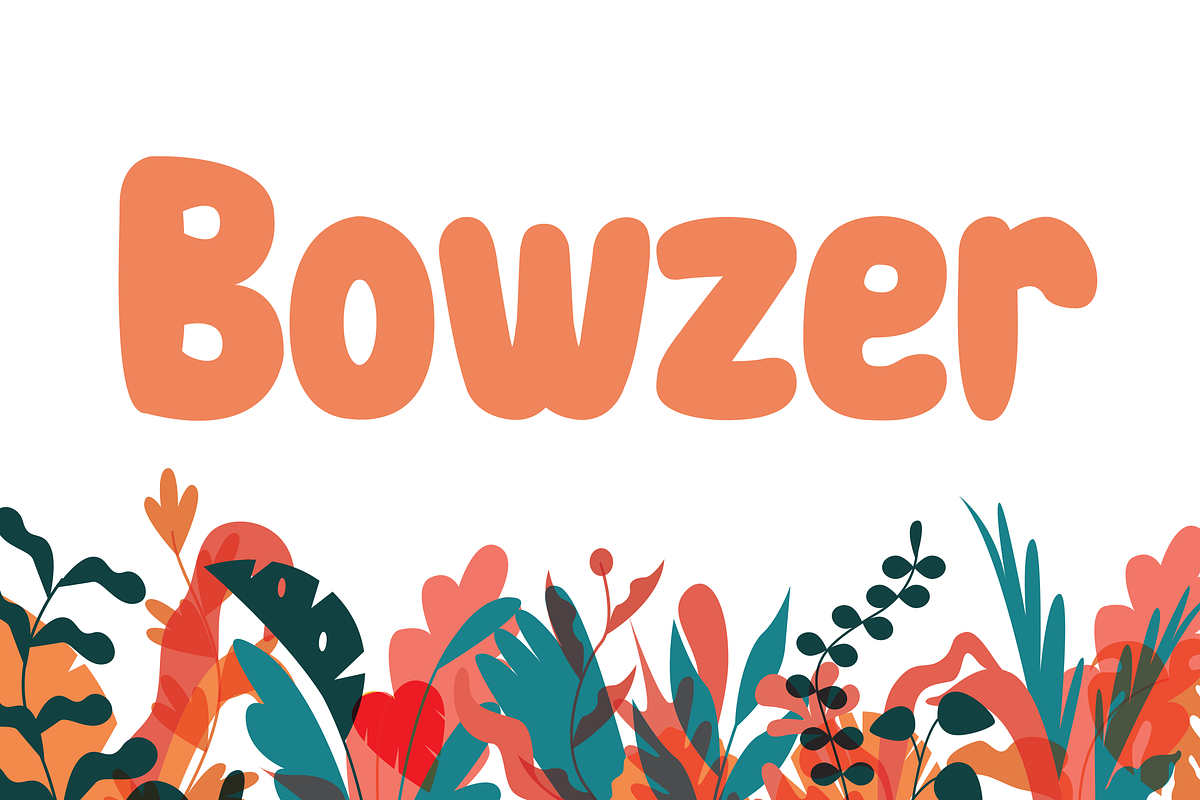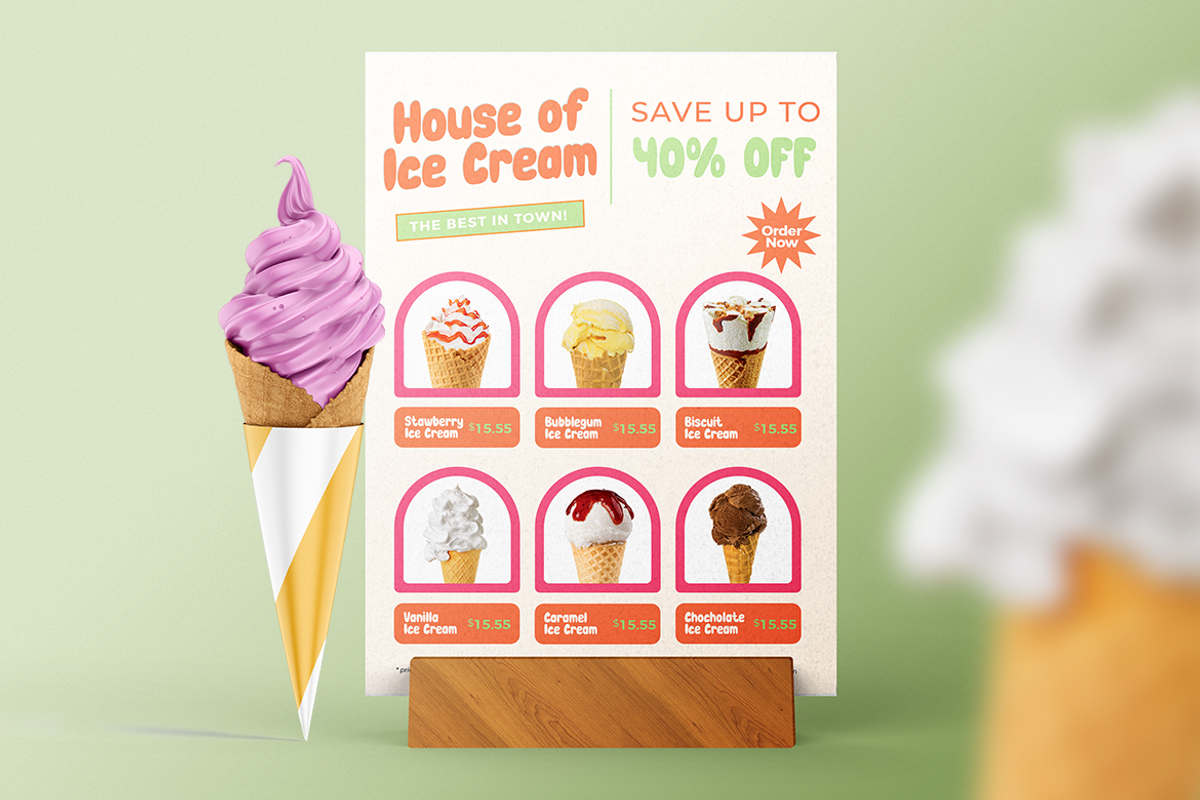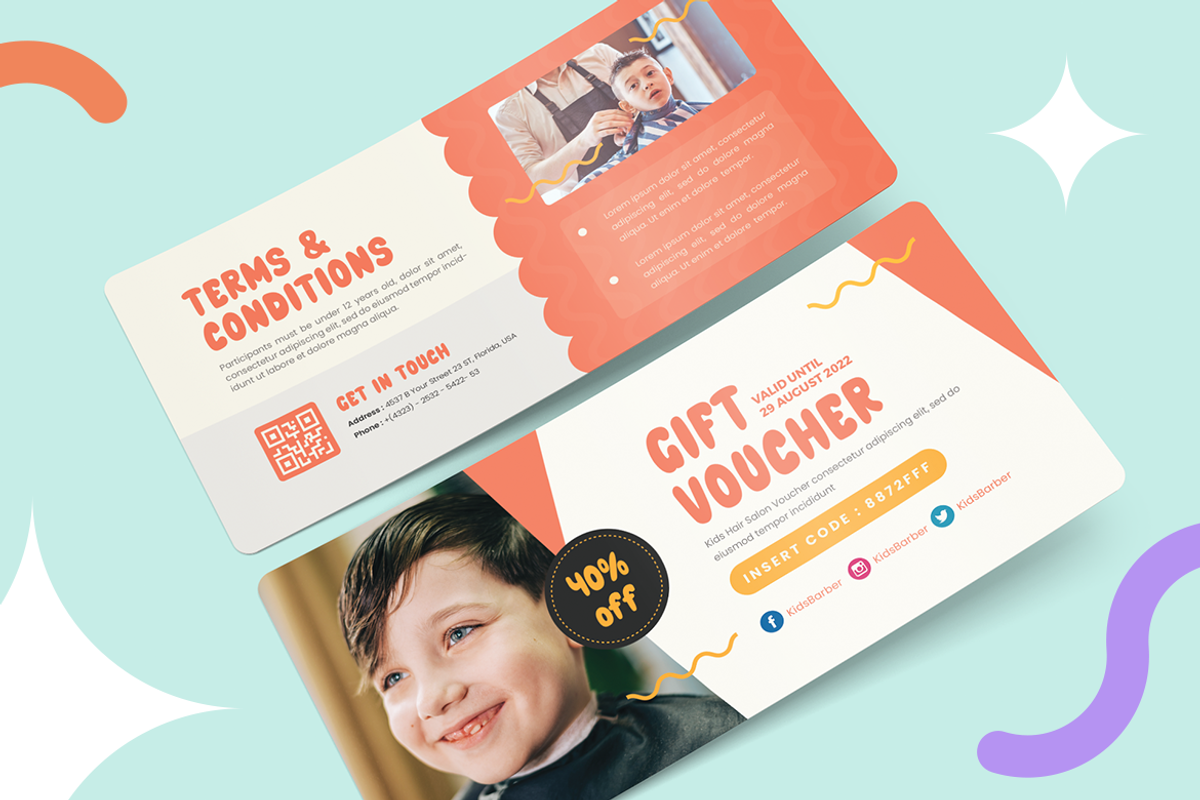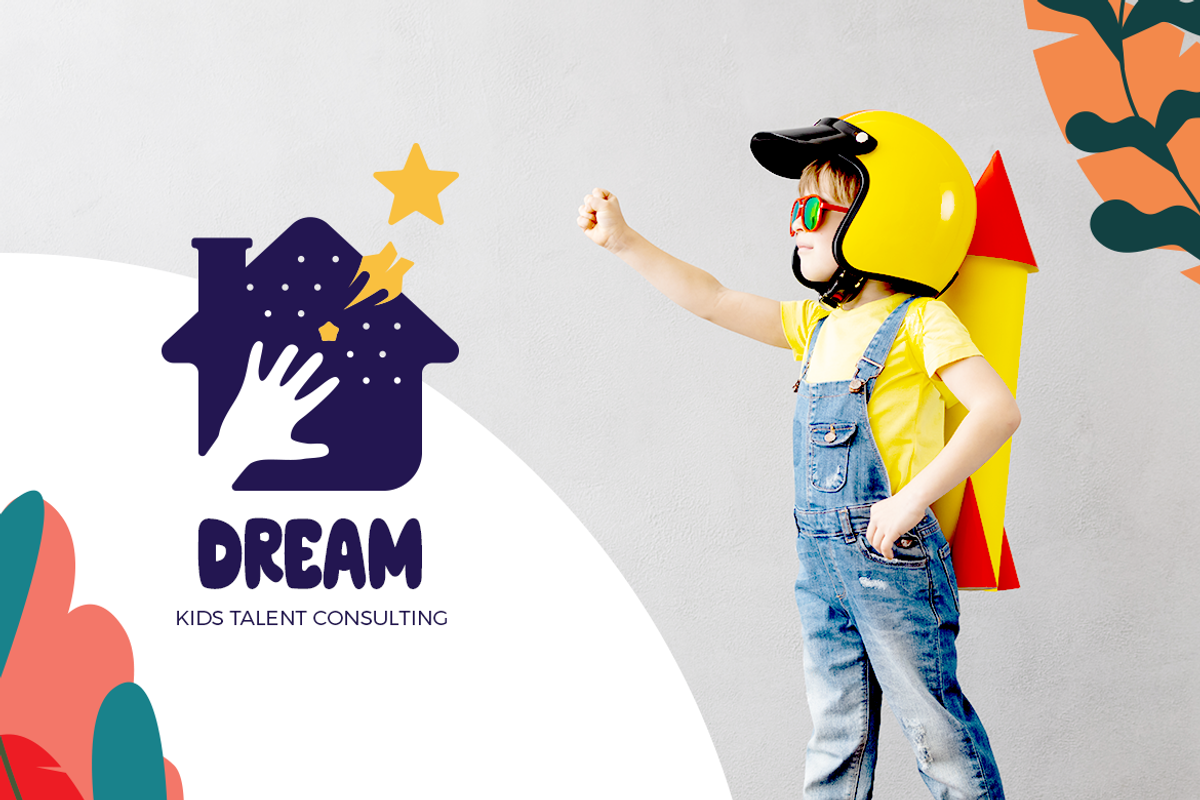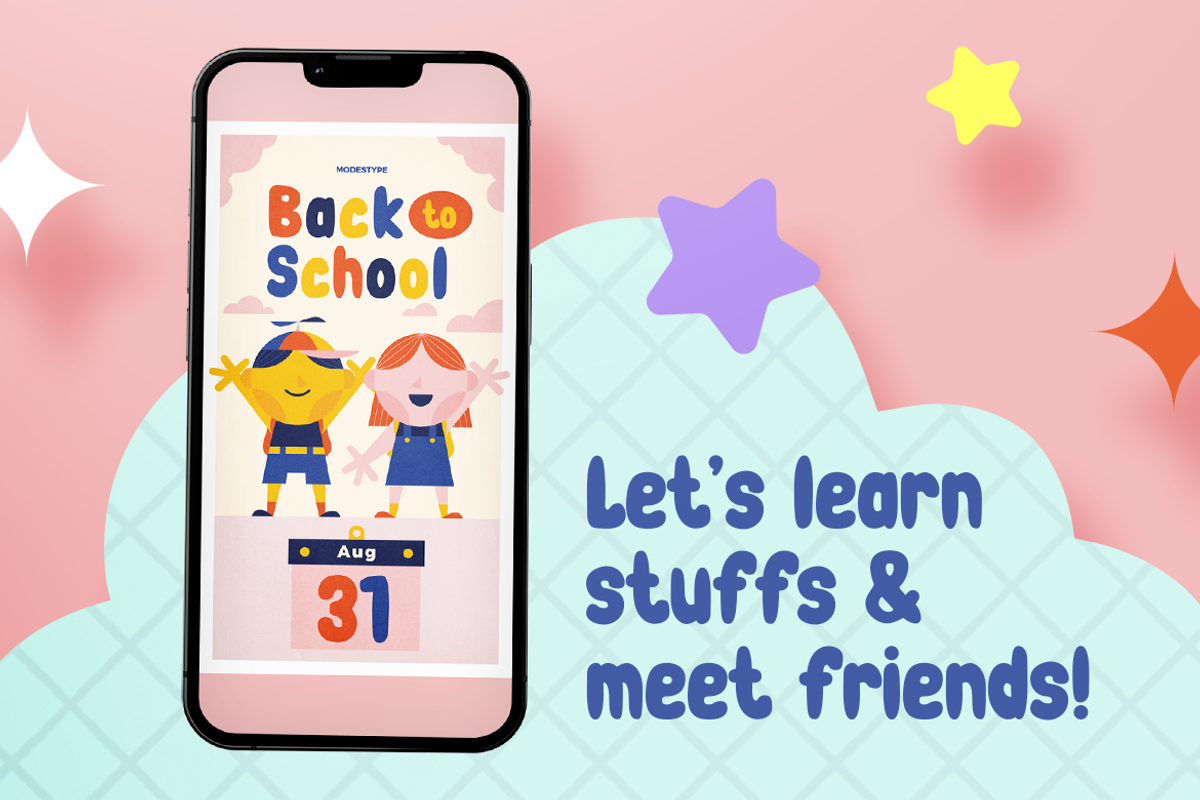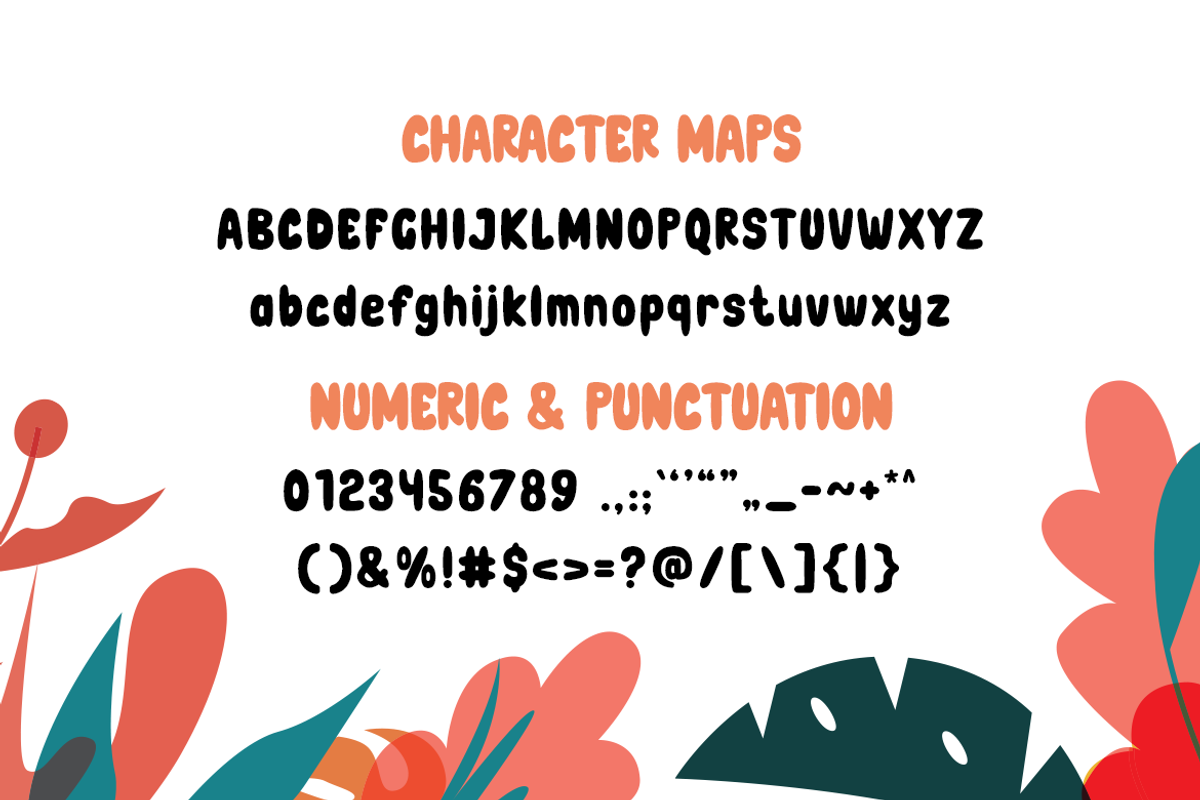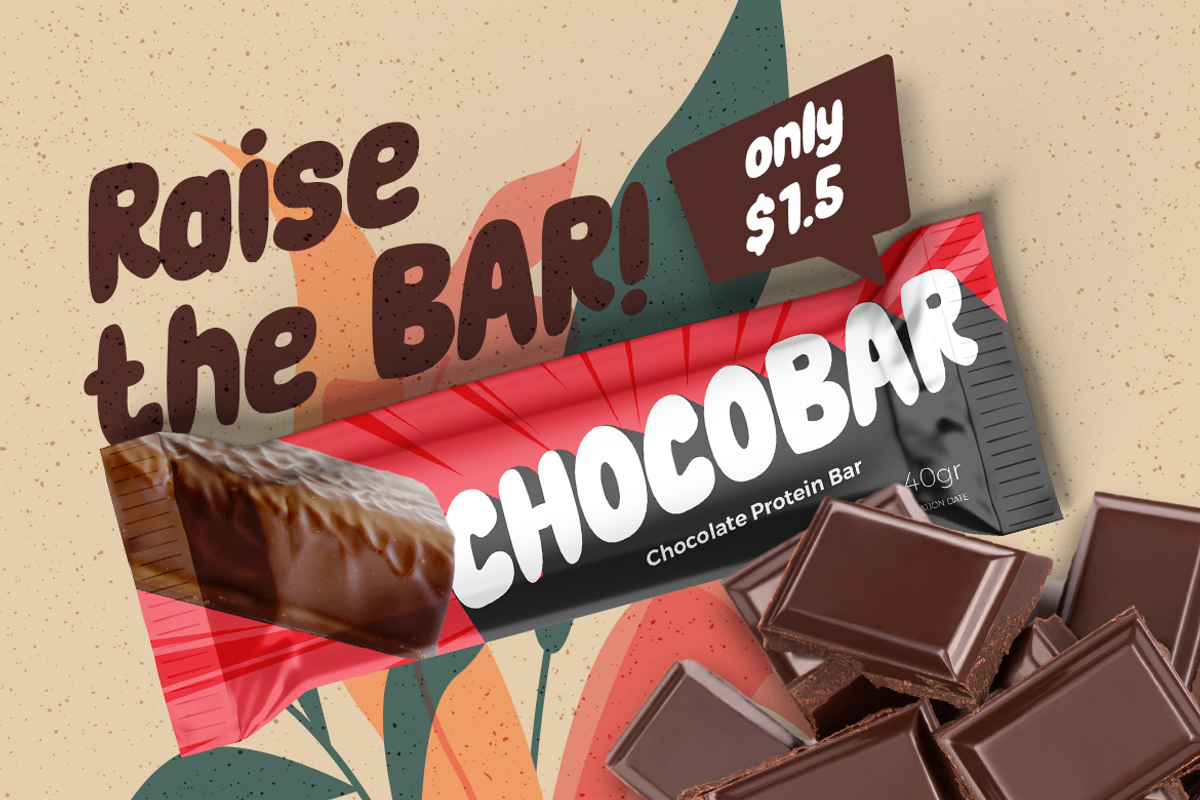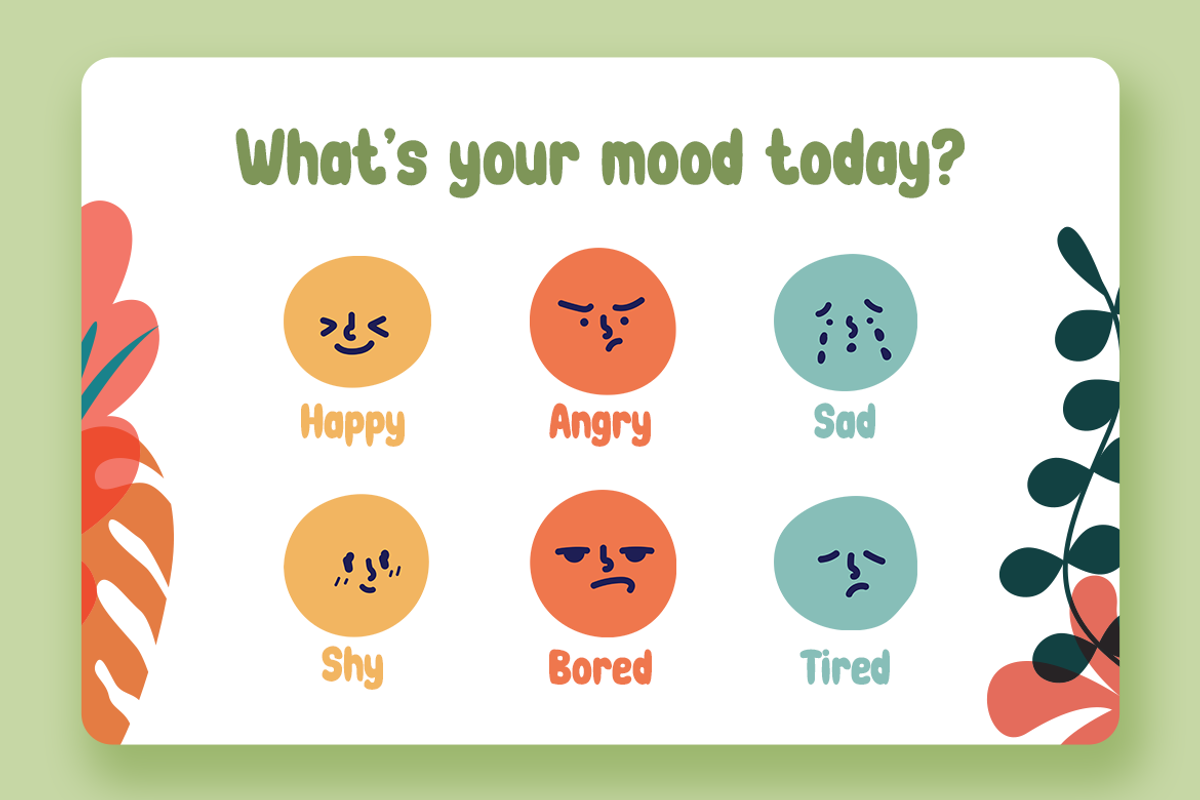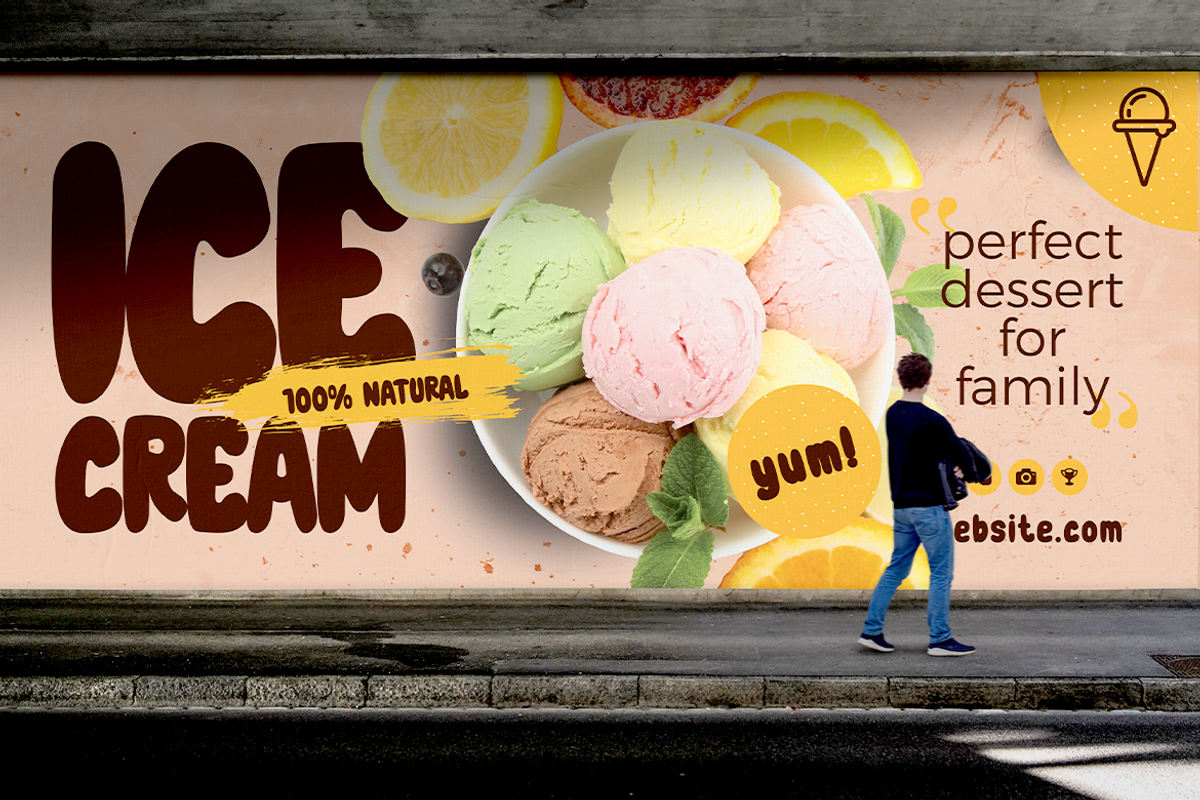
Bowzer – Kids Font
Introducing Bowzer – the ultimate font choice for your kid’s creative projects! This charming Cartoon Font brings a playful touch to any design with its Comic Font style, Cute Font character, and Funny Font appeal. It’s the perfect choice for young audiences and social media platforms like Instagram and Youtube Font.
With its modern design and sans-serif font style, Bowzer also works great for school projects and movie fonts. The modestype and natural style of this Kids Font makes it a versatile choice for various design projects. Plus, it comes with plenty of nature foliage and floral, organic and natural style of font, adding a touch of whimsy to your designs.
Whether you’re designing posters, flyers, or digital content, Bowzer is the go-to font for a fun and engaging look. So, don’t miss out on this fantastic font choice! Try Bowzer today and bring a smile to your young audience’s faces.